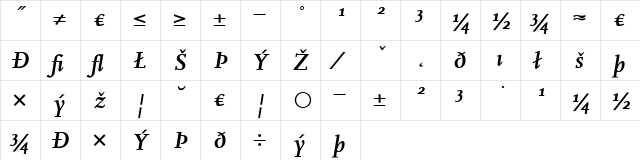
Scala Bold Italic
Design Context for Scala Typeface
Scala is a composed and adaptable typeface that performs quietly and consistently across a wide range of design contexts. Its italic angle brings a sense of urgency and motion to the letterforms. The heavy weight commands attention and anchors typographic hierarchies.
Pro Tip: Use Scala for emphasis, pull quotes, and subheadings where its slanted energy can add rhythm to the layout.